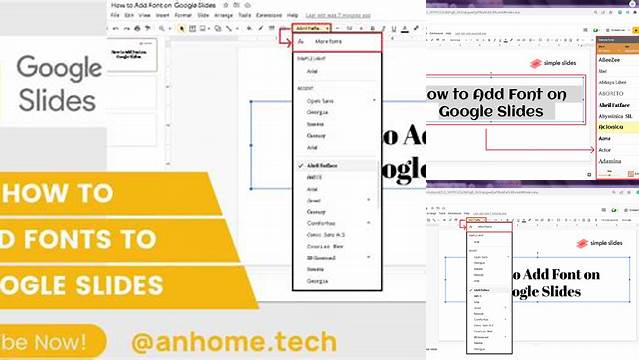
Custom Fonts In Google Slides: Your Ultimate Guide
How to Get Custom Fonts in Google Slides: A Comprehensive Guide
Hey everyone! 👋 Ever wished your Google Slides presentations had that extra oomph? You know, the kind that screams "unique" and "professional"? Well, one of the easiest ways to achieve that is by getting custom fonts in Google Slides. It's a game-changer, trust me. But if you're new to this, it can seem a little daunting. No worries, though! This guide will break down everything you need to know, from the basics to some cool advanced tips. We'll cover how to add custom fonts, manage them, and make your presentations stand out. Let's dive in and make your slides pop!
Why Use Custom Fonts in Google Slides?
Okay, let's be real – the default font options in Google Slides are fine, but they're, well, default. They're what everyone else is using. By using custom fonts in Google Slides, you unlock a world of possibilities. First off, it's all about branding. If you're representing a company or a personal brand, using your specific brand fonts is super important. It builds brand recognition and keeps your visuals consistent. Imagine seeing a presentation that immediately feels like your brand – that's the power of custom fonts. It's like the difference between wearing a generic t-shirt versus a custom-designed one; it just feels more you.
Then there's the whole creativity aspect. Custom fonts let you express your personality and style. You can choose fonts that are playful, serious, modern, vintage – whatever fits your message. This is a fantastic way to differentiate yourself and grab your audience's attention. Think about a presentation for a kids' workshop versus a corporate report. Different fonts can completely change the tone and impact. Plus, using unique fonts can make your slides more readable. Some fonts are just inherently more eye-catching and easier on the eyes, leading to a better viewing experience for your audience. This is about making your presentation look more visually appealing.
Furthermore, custom fonts can elevate the perceived quality of your work. They give your presentations a polished, professional edge that’s hard to achieve with standard fonts. It shows you care about the details and have taken the time to create something special. This attention to detail can be hugely impactful, especially in a business or academic context. Plus, when your slides look better, you feel better presenting them. Confidence is key, and having visually stunning slides can give you that extra boost.
Finding Custom Fonts: Your Font Hunting Guide
When searching for fonts, always consider the license. Free fonts often come with licenses that restrict their use, while premium fonts usually offer broader usage rights. Also, think about readability. Choose fonts that are easy to read on a screen, especially if your presentation will be viewed remotely or on different devices. Finally, try out a few fonts before settling on one. Experiment with different text sizes and layouts to make sure the font works well for your specific needs. This way, you can ensure that you're getting the best custom fonts for Google Slides and your project.
Adding Custom Fonts to Google Slides: Step-by-Step Instructions
Okay, you've found the perfect font. Now, how do you get it into Google Slides? The process is super simple, really. Let's go through the steps together. First, make sure you’re logged into your Google account and open the Google Slides presentation you want to edit. Then, select the text box where you want to change the font or create a new text box. Next, click on the font dropdown menu in the toolbar at the top of the screen. It usually displays the current font, like "Arial" or "Roboto". A menu will pop up with a list of available fonts.
Now, at the top of the font menu, you'll see an option that says "More fonts." Click on that. This will open the font library. Here, you can browse the vast selection of fonts available within Google Slides. You can sort by popularity, trending, or by the font type. You can also search for a specific font by typing its name into the search bar. Once you find the font you want, simply click on it to add it to your list of available fonts. If you already know the name of the font you want to add, you can search for it directly in the "More fonts" window. Type the font name in the search bar and click on the plus sign (+) next to the font to add it to your list.
Once you’ve selected your font, click "OK" at the bottom of the font library window. Your chosen font is now added to your Google Slides font list! Finally, select the text you want to change and choose your new font from the font dropdown menu. Voila! Your text should now display in your new, custom font. It's really that simple, guys. Just remember to repeat these steps for each text box or element where you want to use the custom font. And if you ever want to remove a font, you can go back to the "More fonts" section and deselect it. This way, adding custom fonts to Google Slides becomes a breeze.
Managing Your Fonts: Best Practices and Tips
Alright, now that you know how to add fonts, let's talk about managing them. Keeping your fonts organized is super important for a polished presentation. First of all, be mindful of the number of fonts you use in one presentation. Too many fonts can make your slides look cluttered and unprofessional. Stick to a maximum of two or three different fonts to maintain consistency and readability. One font for headings, one for body text, and maybe a third for emphasis is usually enough. Consider the font pairing. Some fonts work well together, while others clash. Websites like Fontpair and Typewolf can help you find great font pairings that complement each other. This can significantly enhance the visual appeal of your slides.
Another key tip is to maintain consistency across your presentation. Use the same fonts for headings, subheadings, and body text throughout all your slides. This creates a cohesive and professional look. Consistency also helps your audience easily understand the structure of your presentation. Don't be afraid to use text styles. Google Slides allows you to create and save text styles, which can save you a ton of time. Define your styles for headings, subheadings, and body text, then apply them consistently throughout your slides. This not only saves time but also ensures consistency. Always test your fonts. Before you finalize your presentation, preview it on different devices and screen sizes to make sure your fonts are rendering correctly and are easy to read. What looks good on your computer might not look as good on a phone or projector.
Finally, remember that accessibility is essential. Choose fonts that are easy to read, especially for people with visual impairments. Avoid overly decorative or thin fonts that can be difficult to see. By following these best practices for managing custom fonts in Google Slides, you can create visually appealing and user-friendly presentations that stand out.
So, you've followed the steps, but something's not working? Let's troubleshoot some common issues you might encounter. First, make sure you're connected to the internet. Google Slides needs an internet connection to access and load custom fonts. If you're working offline, your custom fonts might not appear. Next, check if the font has been added correctly. Go back to the font dropdown menu and make sure your custom font is listed. If it's not there, try adding it again using the "More fonts" option. If your font is still not showing up, it could be a compatibility issue. Not all fonts are perfectly compatible with Google Slides. Try using a different font from the Google Fonts library, as these are specifically designed for web use. This will make sure everything looks as intended when you customize the fonts in your Google Slides.
Another problem could be related to the font weight or style. Some fonts may not have all the different weights (like bold, italic) available. If you're trying to use a specific style and it's not working, check if that style is supported by the font you've chosen. If the text is still appearing in a different font, it's possible that there's a conflict with another font on your computer or in your presentation. Try clearing the formatting or deleting the text box and creating a new one to see if that fixes the issue. If you’re still stuck, try refreshing your browser or clearing your browser's cache and cookies. Sometimes, these simple steps can resolve unexpected display issues. If all else fails, reach out to Google's support team or search online forums for solutions. Chances are, someone else has encountered the same problem and found a fix. This will help with troubleshooting custom fonts in Google Slides.
Advanced Tips and Tricks for Using Custom Fonts
Okay, you're feeling confident with the basics? Let's level up your game with some advanced tips and tricks. Consider using font variations. If your chosen font has multiple weights (light, regular, bold, etc.) and styles (italic), use them to create a more dynamic and visually interesting presentation. Using different font weights for headings and body text can help improve readability and highlight key information. Experiment with text effects. Google Slides allows you to add effects like shadows, outlines, and glows to your text. Use these effects sparingly, as too many can make your slides look cluttered. Combining text effects with your custom fonts can create unique and eye-catching designs. Think about using custom font combinations. Pairing a unique heading font with a clear, readable body font can create a visually appealing contrast. Don't be afraid to experiment with different combinations to see what works best for your content. This is about mastering advanced techniques for custom fonts in Google Slides.
Another great trick is to use custom font combinations. Select a font for headlines that is engaging and different. For the body text, try something more traditional. This contrast guides the viewer's eyes and makes your presentation easier to digest. Also, explore using custom font combinations with different colors and backgrounds to add more visual interest to your presentations. Remember, your goal is to create a cohesive and attractive design that keeps the audience engaged. By experimenting with these advanced tips, you can make your presentations even more captivating and memorable. You're not just presenting information; you're creating an experience.
Conclusion: Elevate Your Presentations with Custom Fonts
So there you have it! You now have a complete guide on how to get custom fonts in Google Slides. From finding the perfect fonts to adding them to your slides, and even troubleshooting some common issues, you have everything you need to make your presentations stand out. Remember, custom fonts are a powerful tool for branding, creativity, and professionalism. Don’t be afraid to experiment and find the perfect fonts to express your unique style. The more comfortable you get with the process, the more creative you can be. Now go forth and create some amazing presentations that will leave a lasting impression! Happy designing, guys!